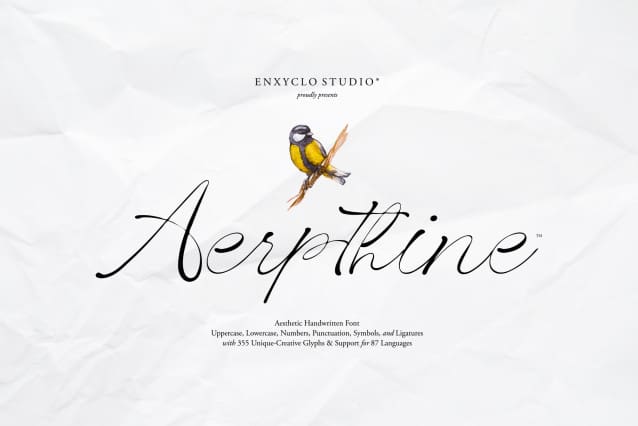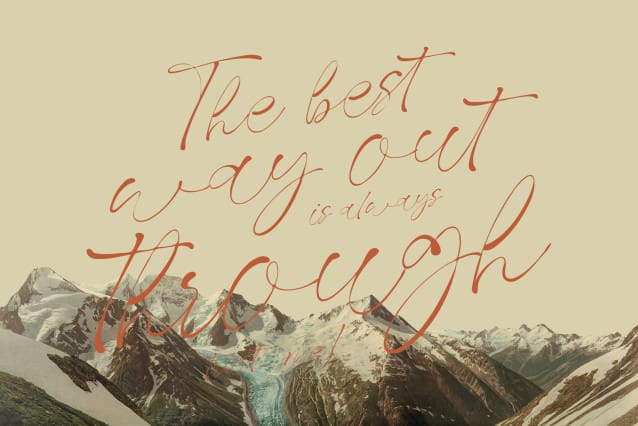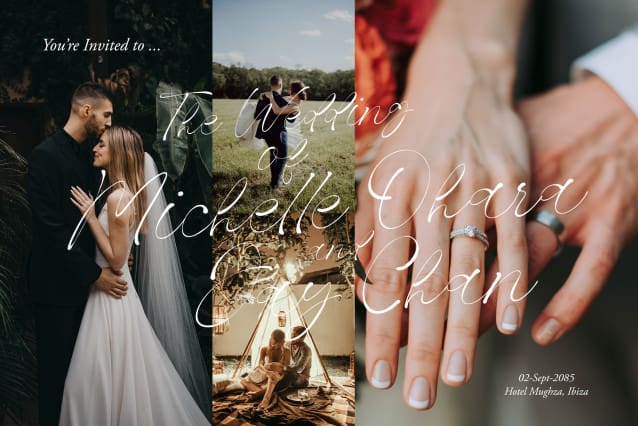
Aerpthine Script Font
AERPTHINE SCRIPT FONT is a handmade calligraphy and aesthetic handwritten script font that is made with a touch of love in every character. This font is perfect for logos, branding, business cards, watermarks, posters, wedding invitation, logo design, branding, social media design, book, magazine, etc. This font is both modern and nostalgic. For those of you who are needing a touch of elegant, stylish, classy, chic and modernity for your designs, this font was created for you. Yes, you!